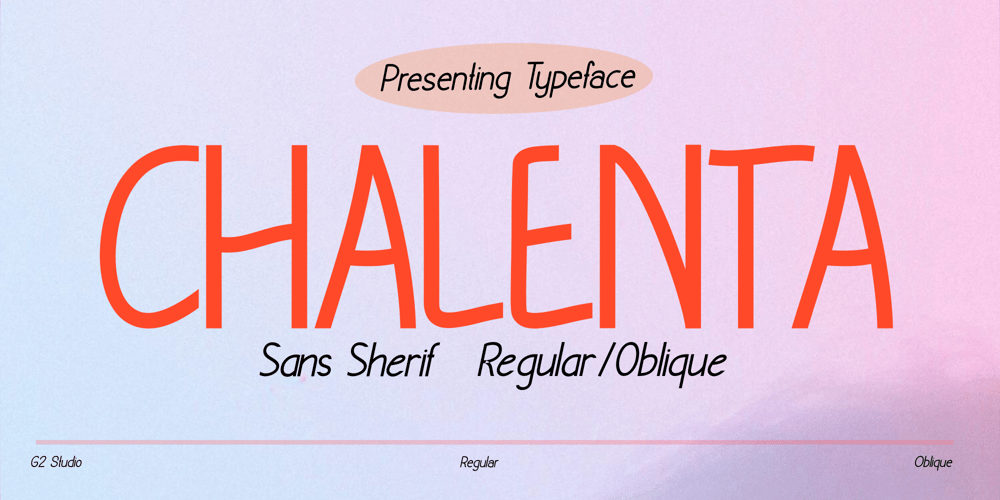
Chalenta Font Family was designed by Eka Setiono and published by G2 Studio. Chalenta contains 2 styles and family package options. Chalenta Sans Serif is a modern and elegant font with a clean, well-balanced design. Its smooth lines and readable structure make it perfect for various design needs.With a minimalist yet sophisticated touch, this font exudes both professionalism and warmth. Versatile and adaptable, Chalenta Sans Serif is ideal for branding, editorial, digital, and print applications.